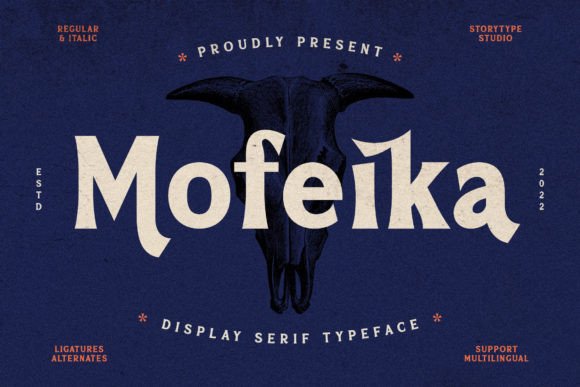
Step into the world of typography with Mofeika, an exquisitely crafted serif font that harmonizes modernity and timeless elegance. Its unique style and charmingly fancy appearance breathe life into your designs, transforming them into captivating masterpieces.
Unleash your creativity and let Mofeika guide you through a symphony of design possibilities. Create logos that radiate sophistication and luxury, titles that dance with artistry, and fashion brands that exude an aura of exclusivity. Whether you're crafting a magazine layout, designing apparel, or simply seeking the perfect font for your heartfelt quotes, Mofeika stands as your steadfast companion.
Mofeika's versatility knows no bounds, adapting seamlessly to a myriad of design endeavors. Let its enchanting curves grace your book or movie titles, transforming them into cinematic masterpieces. Embrace the allure of Mofeika's Latin-inspired design, adding a touch of worldly charm to your creations. Allow your lettering to ignite passion, and experience the sheer joy of transforming words into art.
With Mofeika, you're not just downloading a font; you're embarking on a journey of creative expression, where every stroke of the pen becomes a testament to your artistic vision. Its meticulous detailing and masterful execution elevate your designs, captivating audiences and leaving a lasting impression.
Indulge in the beauty of Mofeika, a font that transcends the ordinary, propelling your designs to new heights of brilliance. Embrace its captivating allure and watch as your creations blossom into breathtaking works of art.